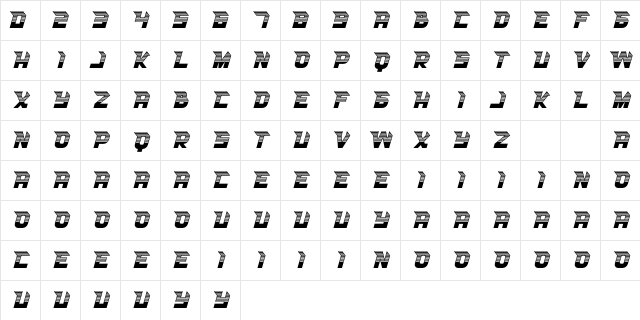
Complete RACE SPACE STRIPE Regular glyph index. Displaying only characters natively supported by RACE SPACE STRIPE Regular font.
RACE SPACE STRIPE is a composed and adaptable typeface that performs quietly and consistently across a wide range of design contexts.